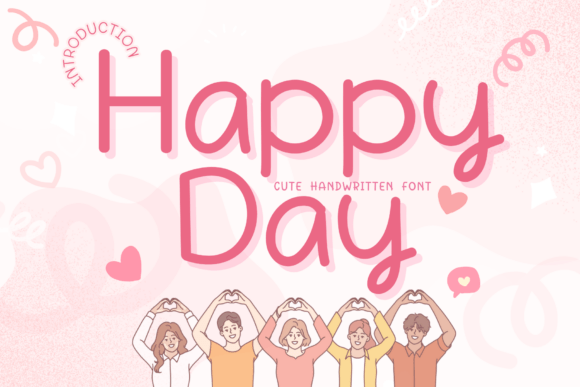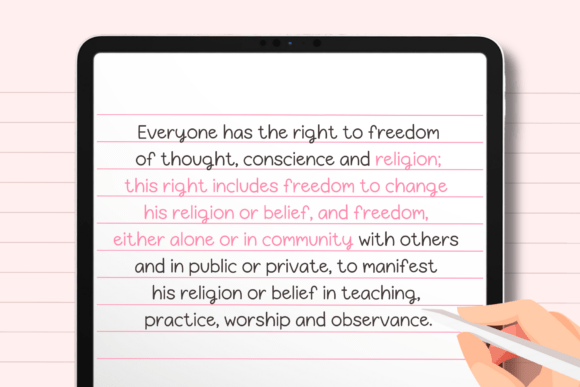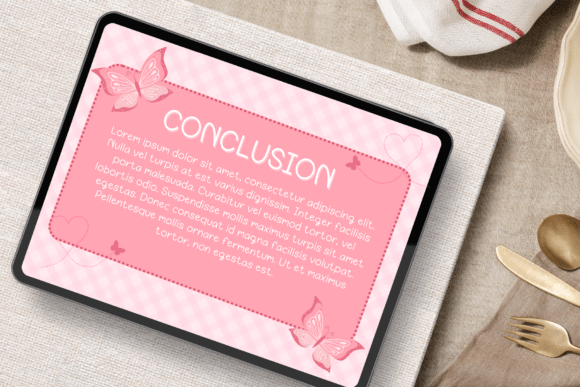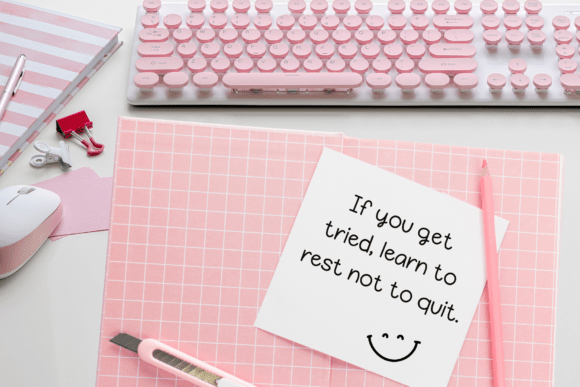
Happy Day Font
About the Happy Day Font
Step up your design game with Happy Day Font, a font that exudes confidence and style. Happy Day is a sweet and cute handwritten font. This gentle font will look gorgeous on a variety of design ideas. It will add a joyful and romantic touch to each of your projects! Perfectly fit for branding, logo, wedding things, greeting cards, fashion, look book, marketing promotion, and any time you want your design to look fancy and elegant but still casual.
Happy Day’s playful, informal style is ideal for headlines, short text blocks on packaging, and social media graphics. It excels in branding for products targeting a young, feminine demographic, such as cosmetics, confectionery, or children’s wear. However, its delicate nature makes it unsuitable for body copy or UI elements requiring high readability. Avoid using it in lengthy paragraphs or small sizes.
Consider pairing Happy Day with a clean sans-serif like Montserrat for a balanced contrast, or a more structured serif like Playfair Display for a touch of classic elegance. For a modern twist, a geometric sans-serif such as Futura would complement its hand-drawn charm.
Its overall personality is best described as cheerful and approachable, offering a sense of warmth and handcrafted charm.
Happy Day Font Usage Examples
Happy Day Font Example